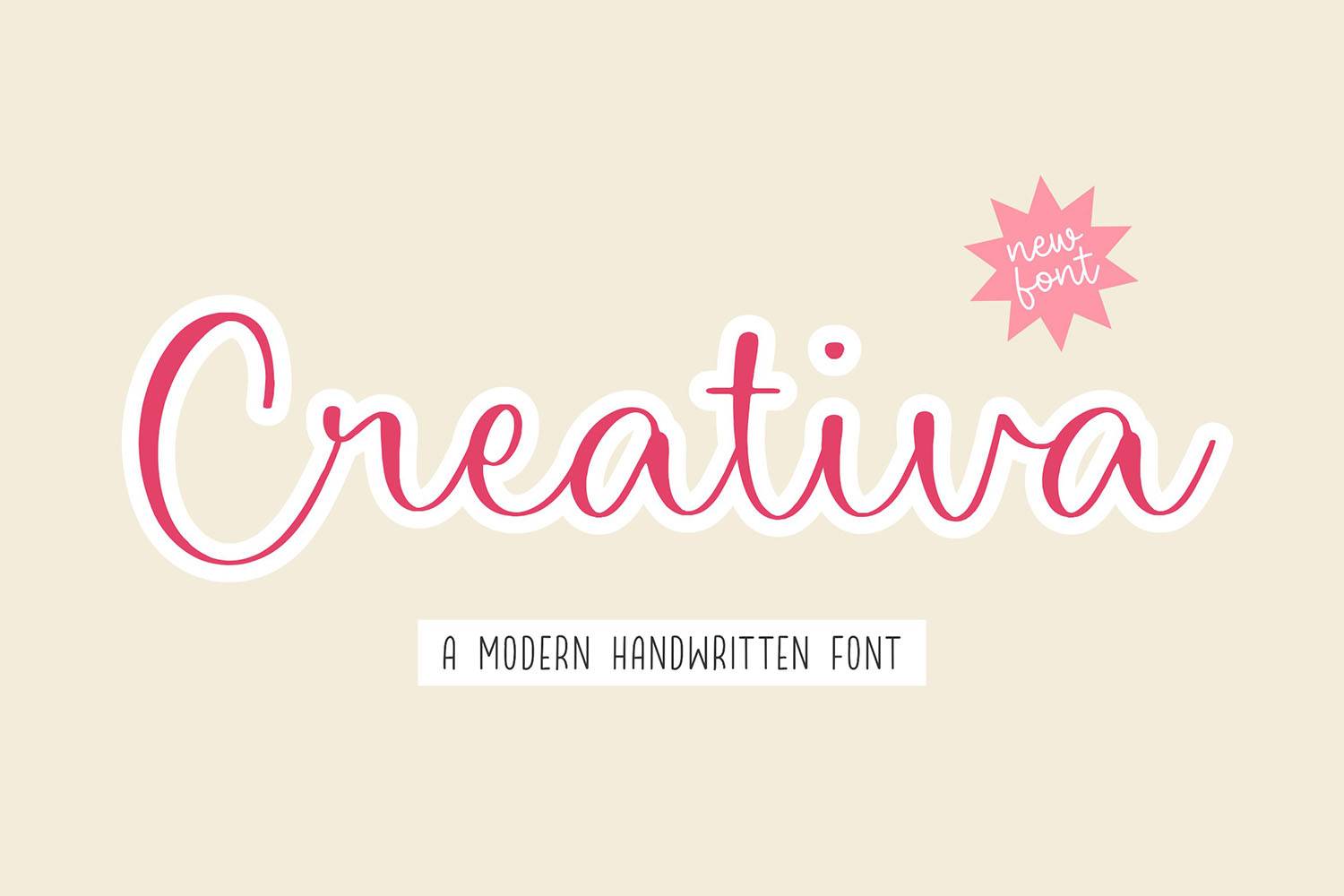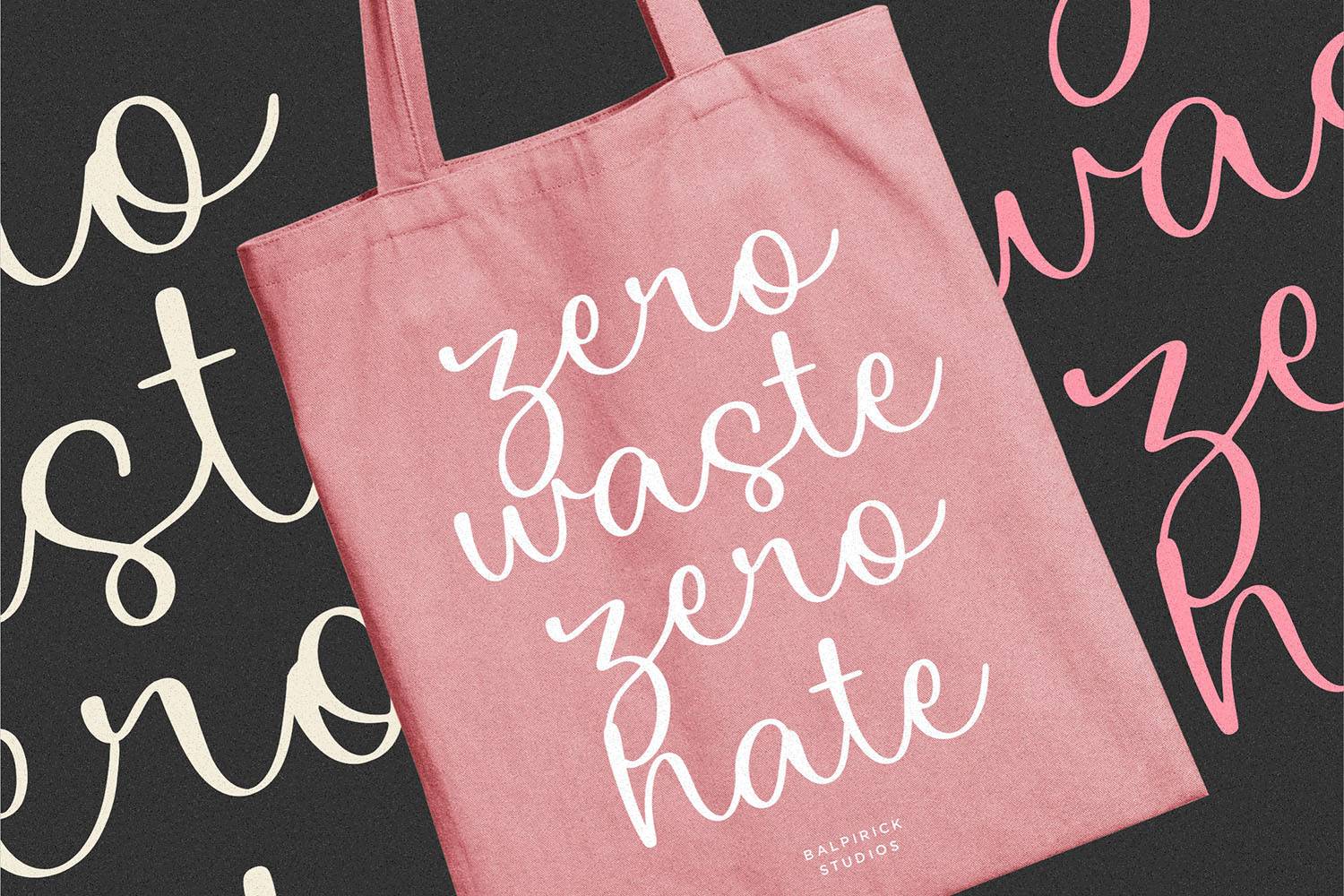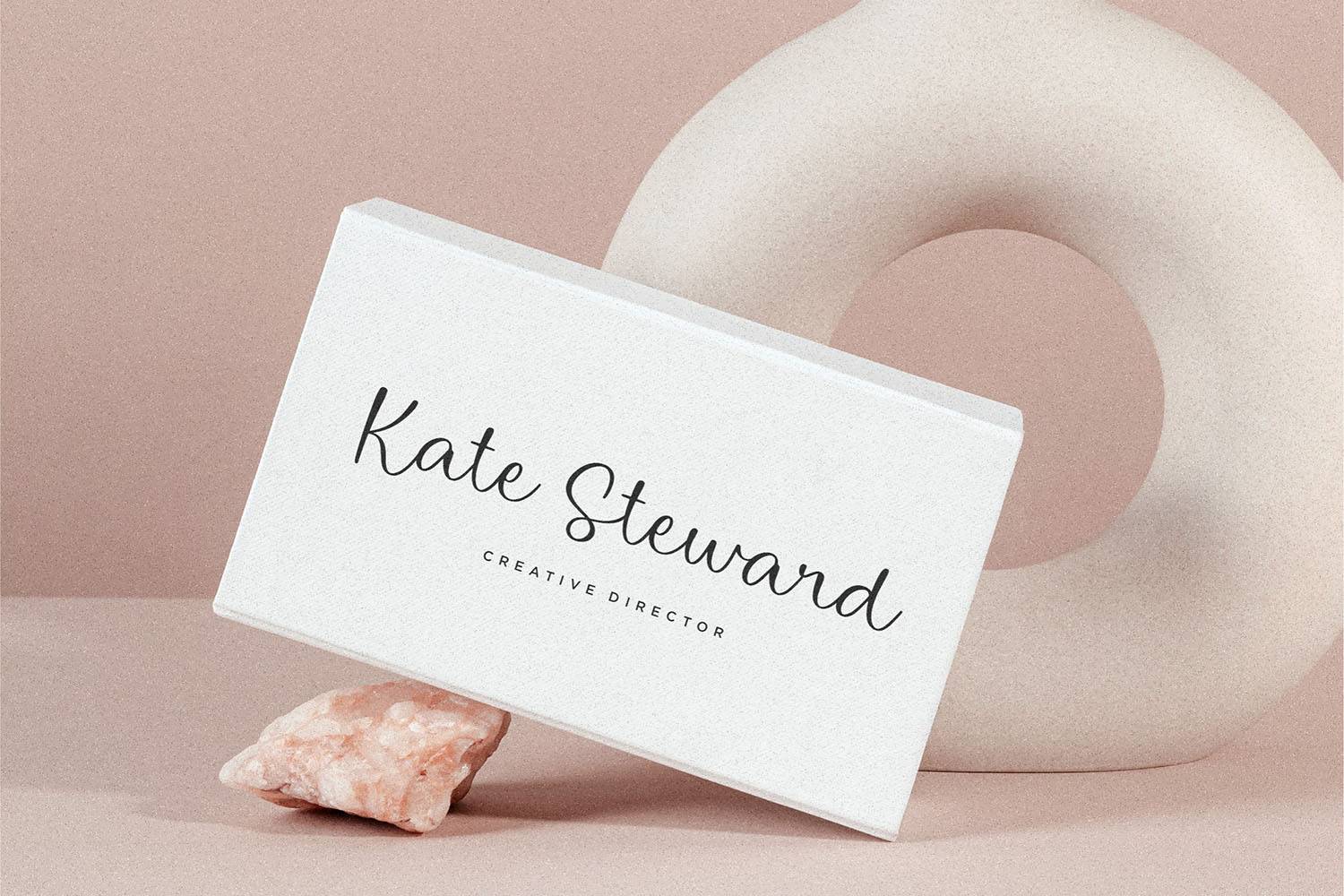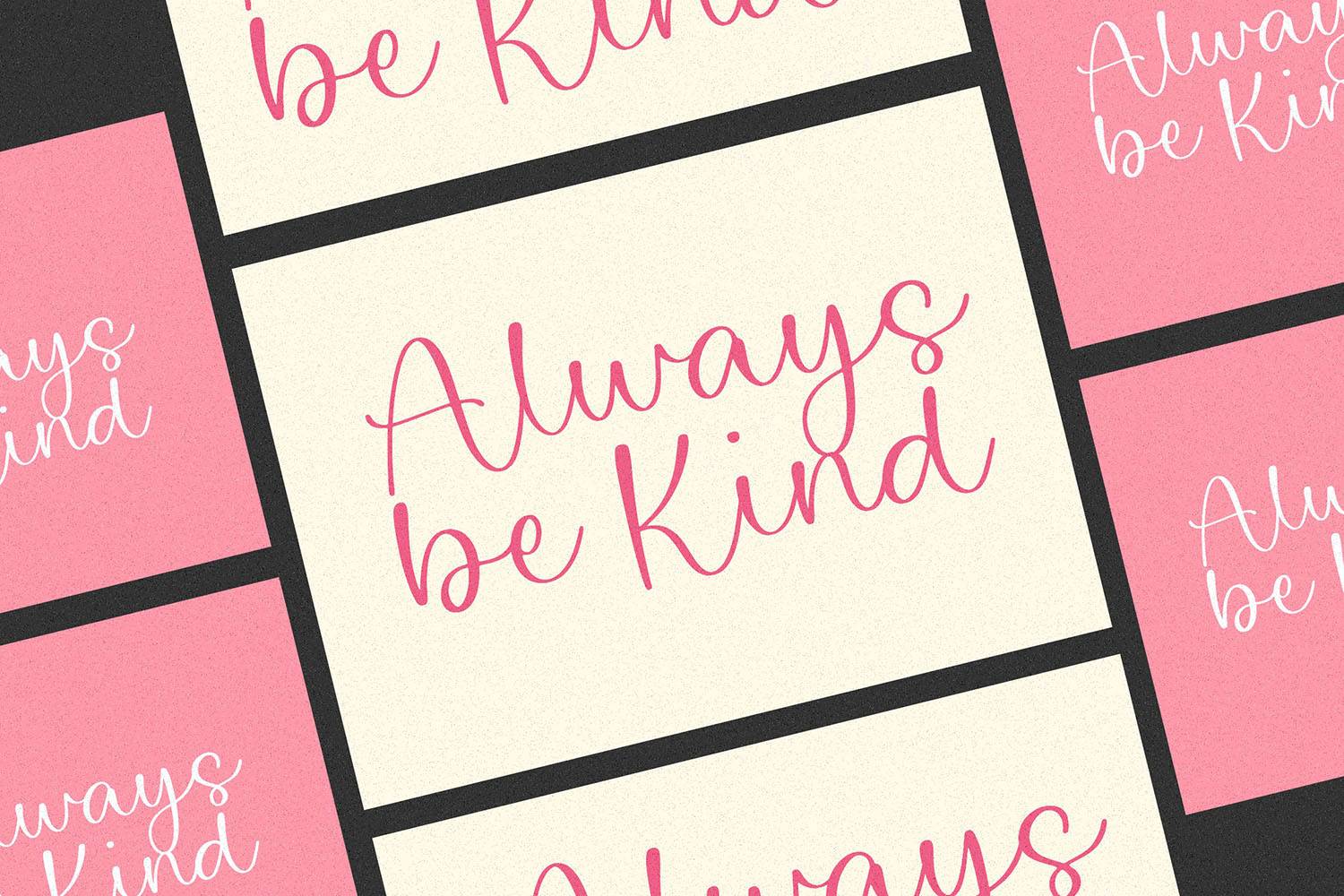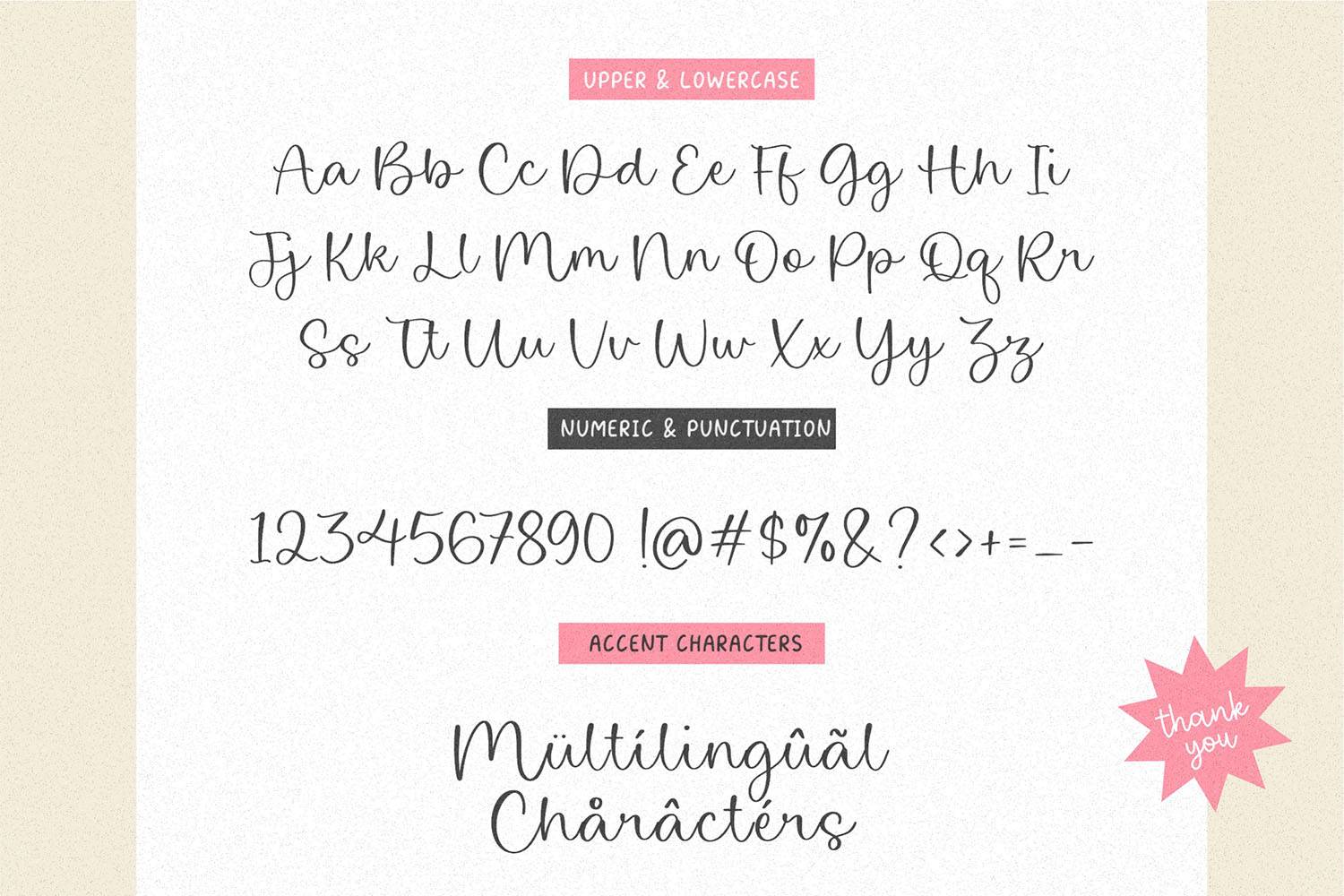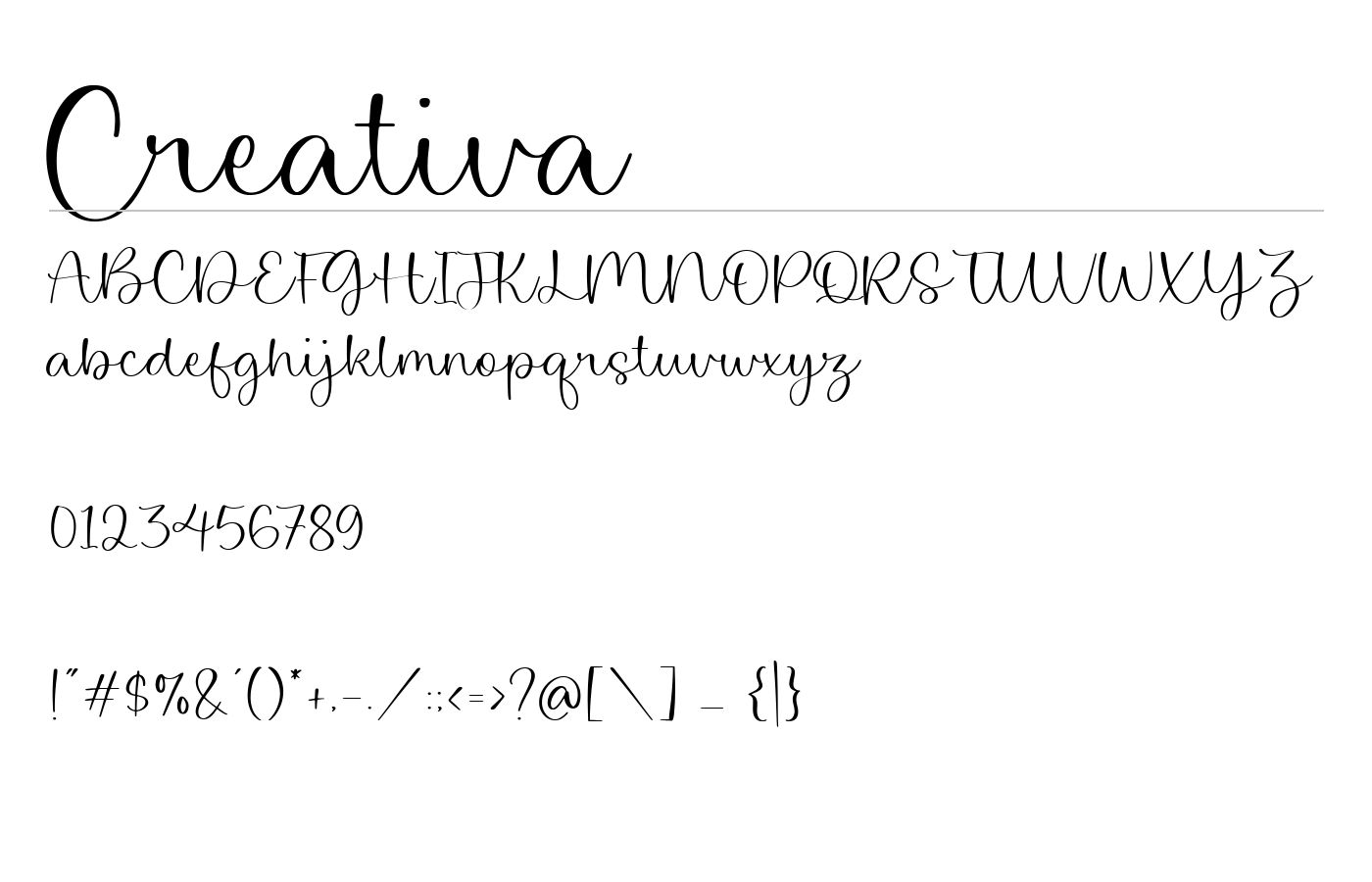
Creativa is a delicate, handwritten script font with a light weight and airy feel, featuring elegant, flowing letterforms that blend smooth curves with subtle character variations. Its distinctive, playful style makes it ideal for creative branding, invitations, and editorial projects that seek a personal, artistic touch. This font works well in settings where a charming, approachable, yet sophisticated look is desired, especially for headlines and decorative text.
Creativa Font
About Creativa Font
| Font family | Creativa Font |